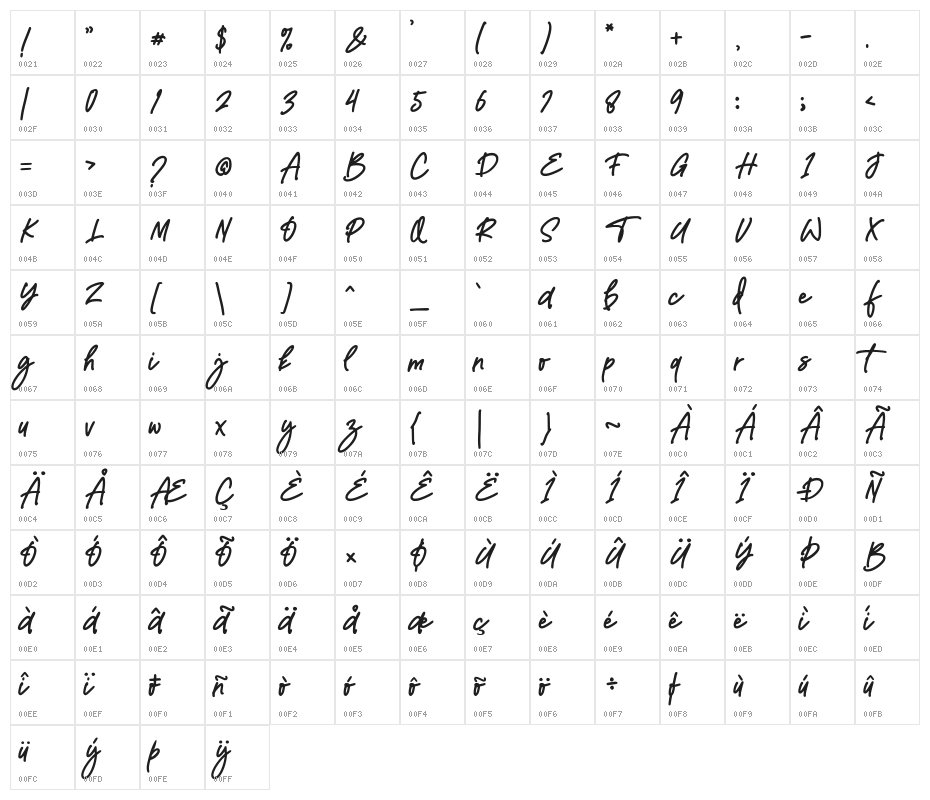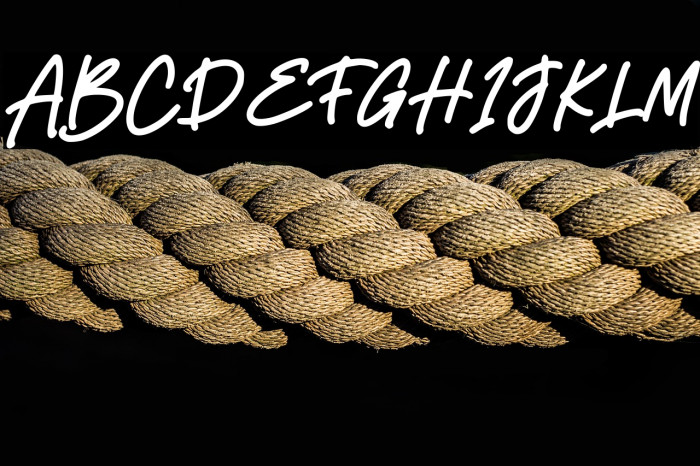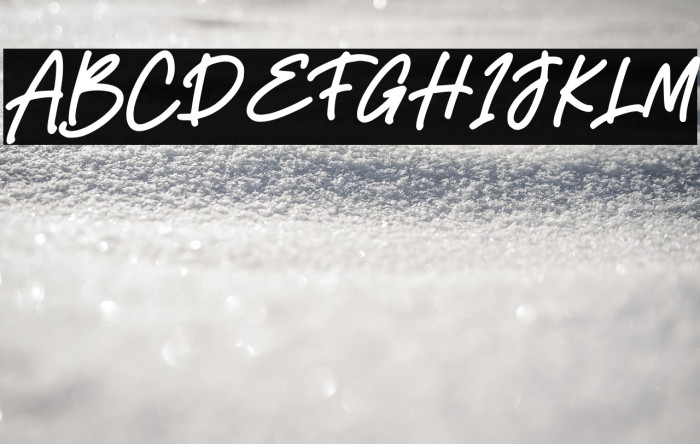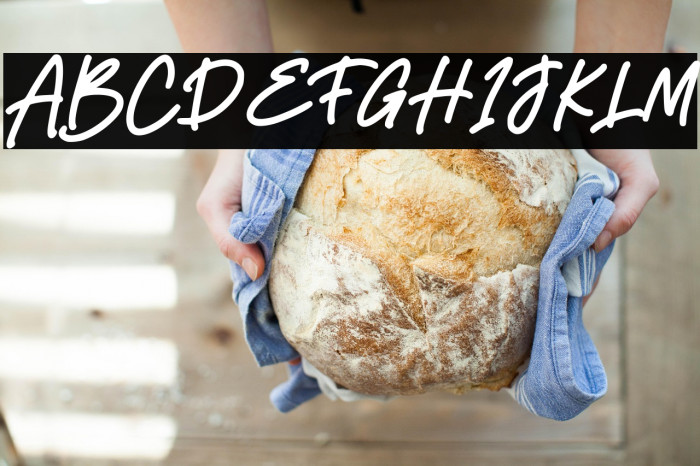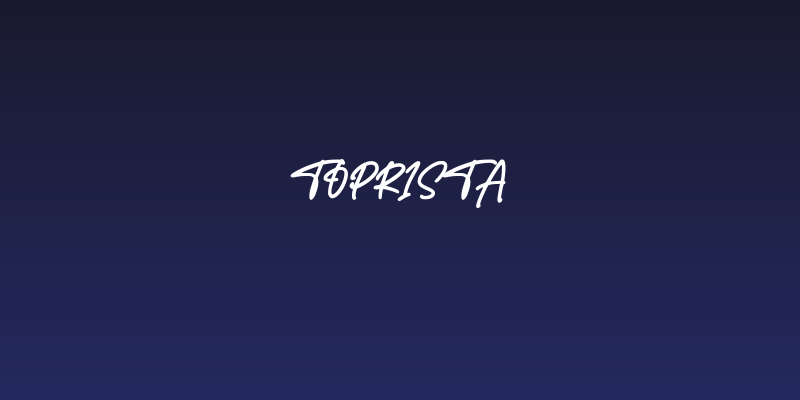
TopRista Font
TopRista Description
This font exudes a dynamic and energetic style, characterized by its handwritten script appearance. The letters are fluid and connected, mimicking the natural flow of cursive handwriting. Each character has a unique flair, with varying stroke thickness that adds a lively and personal touch. The uppercase letters are bold and prominent, while the lowercase letters maintain a consistent flow, enhancing readability. Numbers and special characters are crafted with the same attention to detail, ensuring a cohesive look across all elements. This font is ideal for projects that require a personal, informal, and creative touch.
| Use Case | Logos, Headlines, Invitations |
| Proposed Projects | Ideal for greeting cards, invitations, personal branding, and creative projects. |